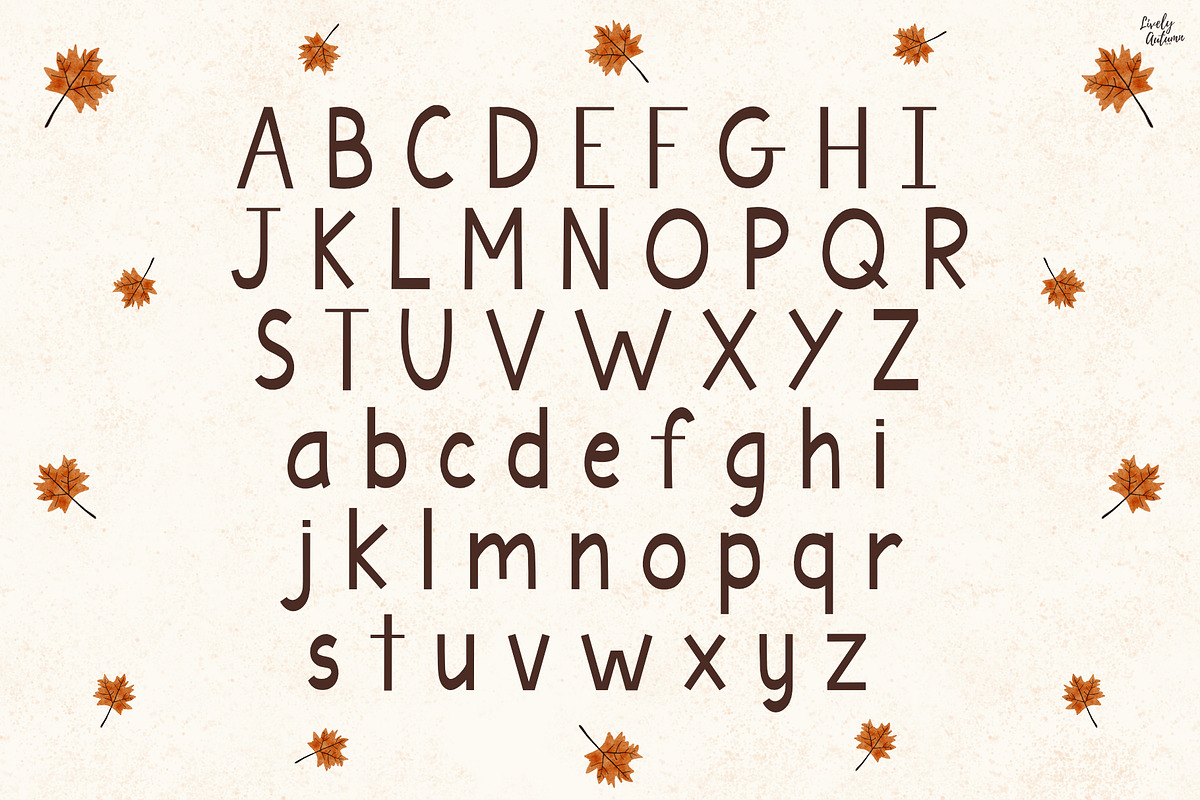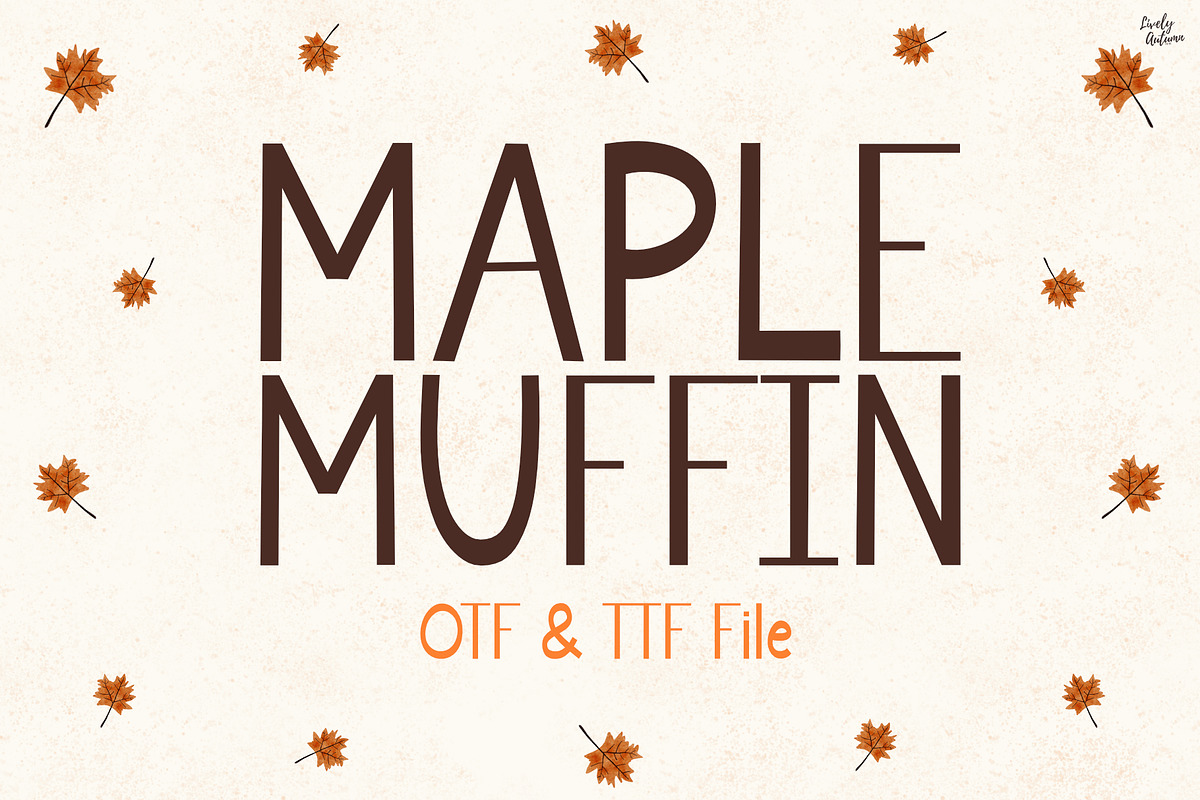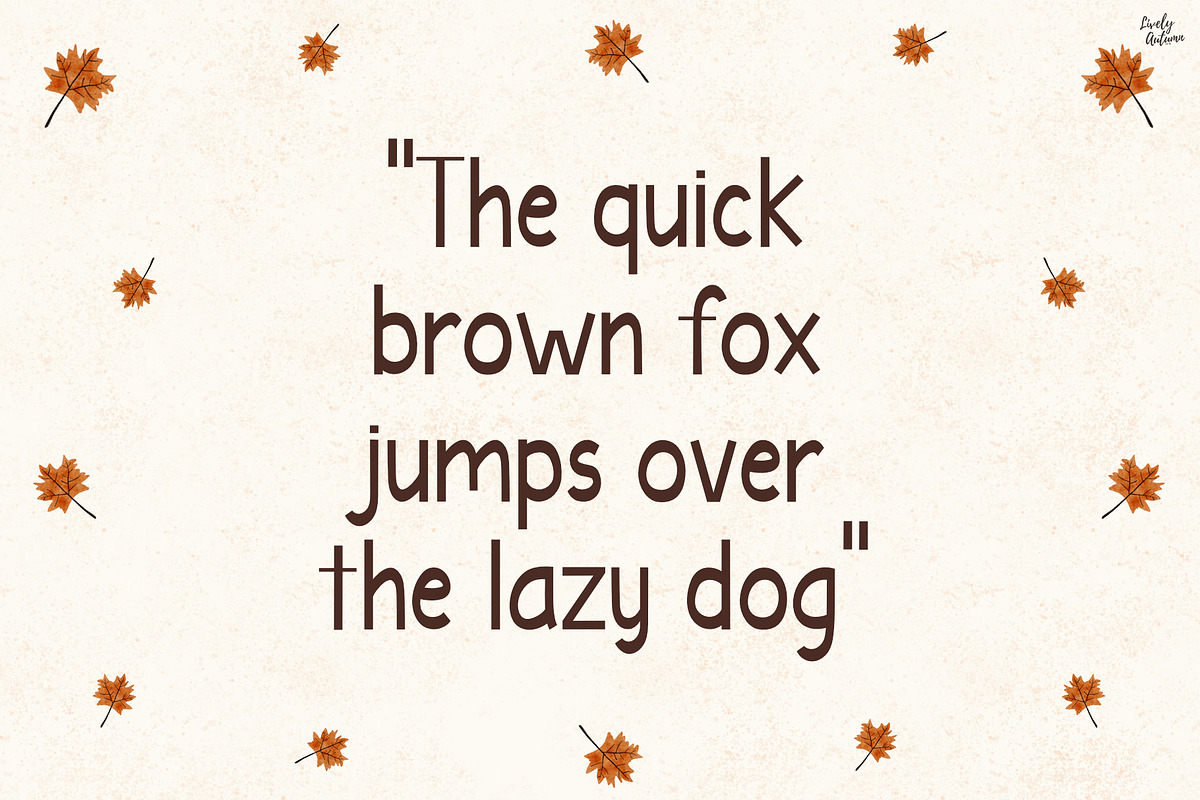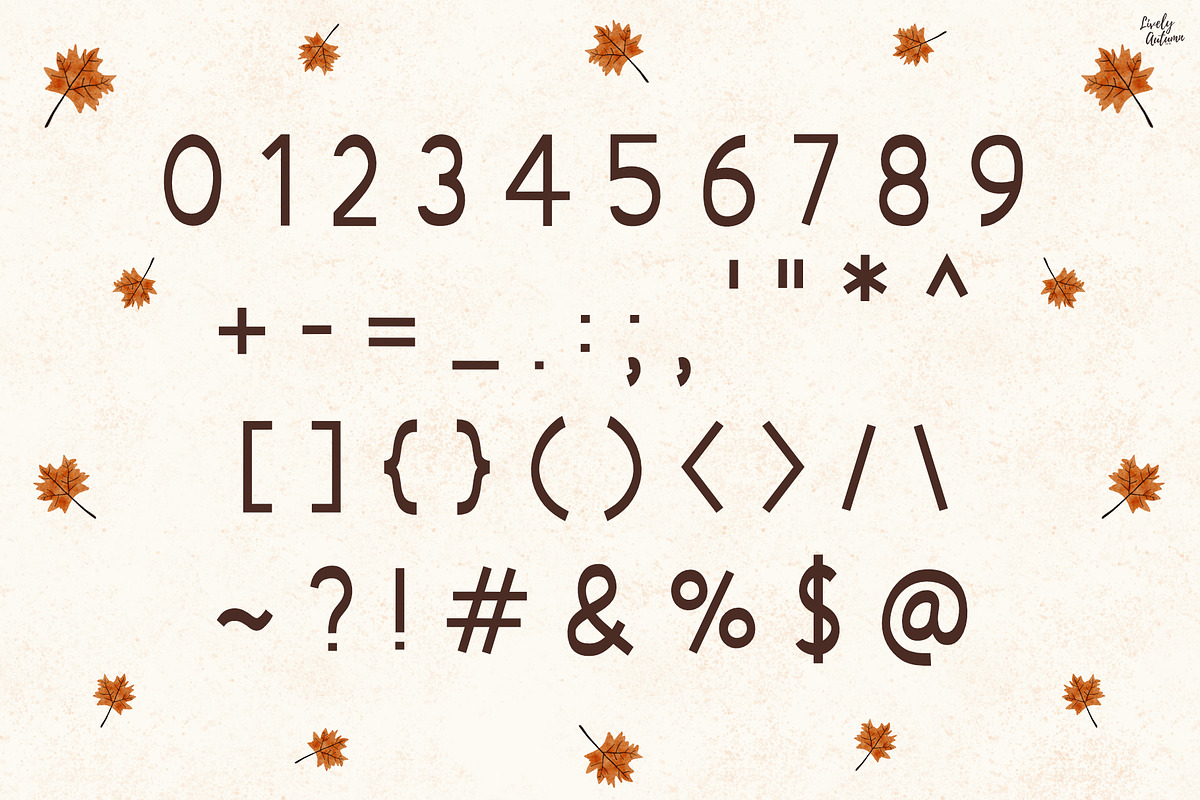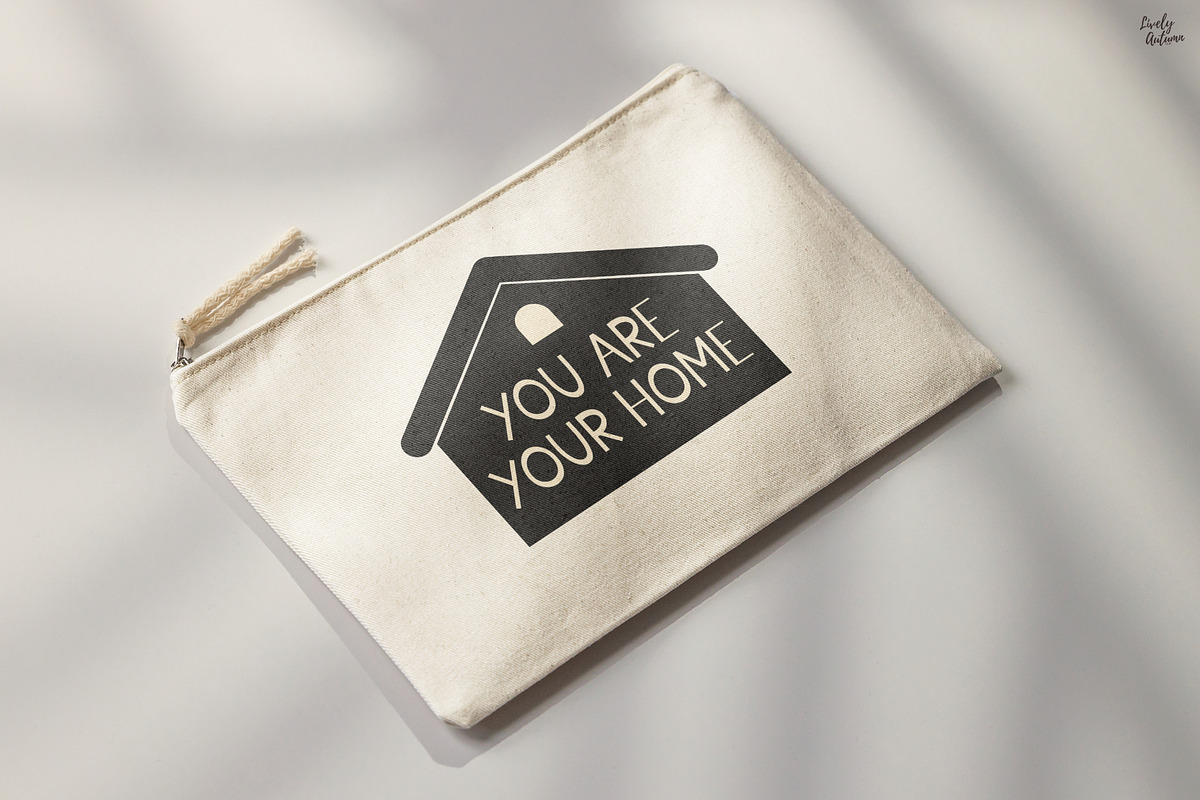
Maple Muffin | Handwriting font
Maple Muffin is a handwriting font written in a marker pen style. Perfect for your personal projects and various projects. From invitations to posters, social media graphics, journals, stickers and much more.
- Font includes: uppercase, lowercase, numbers, and punctuation